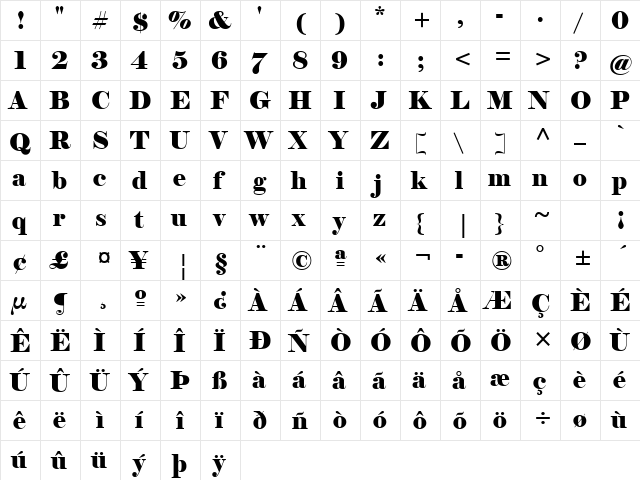
Elephant Regular
| Foundry | Type Solutions, Inc. StingRay!ꠖ1.00. |
| Designer | Matthew Carter |
Design Context for Elephant Typeface
Elephant takes a measured approach to typography — its balanced proportions and neutral character make it a reliable workhorse for both digital and print work.